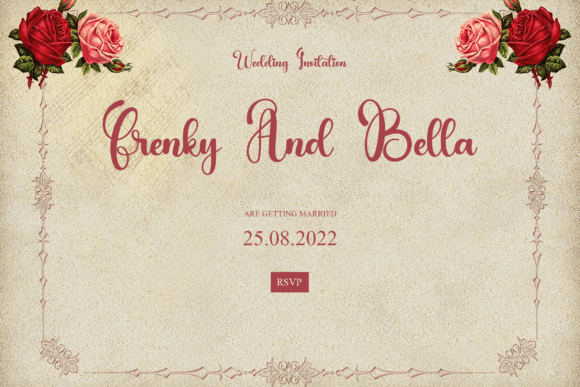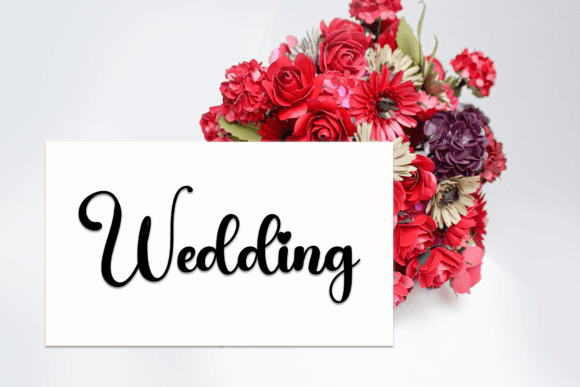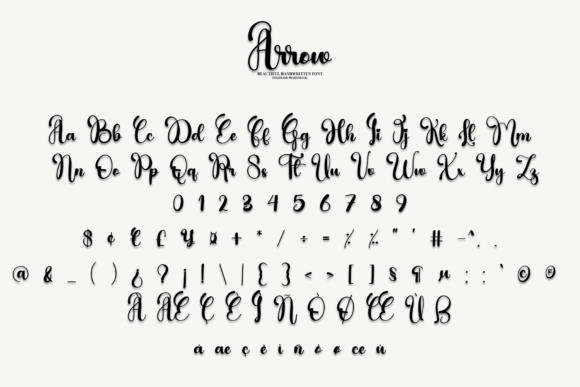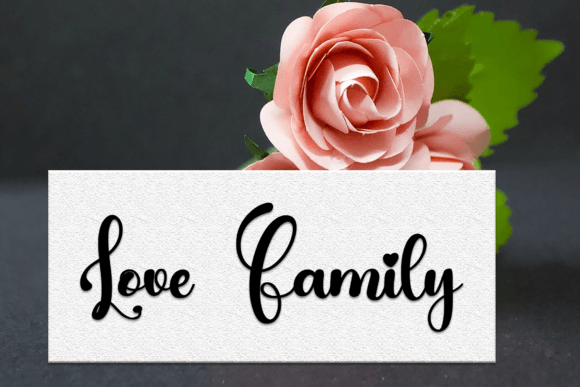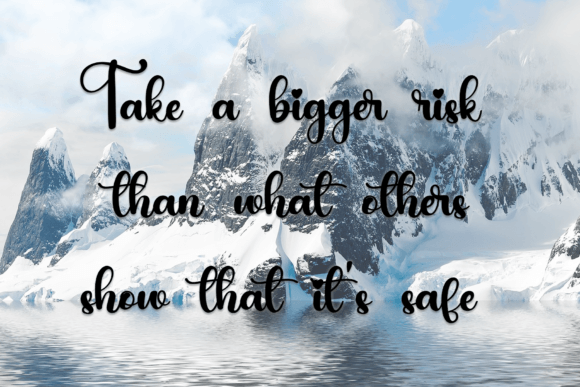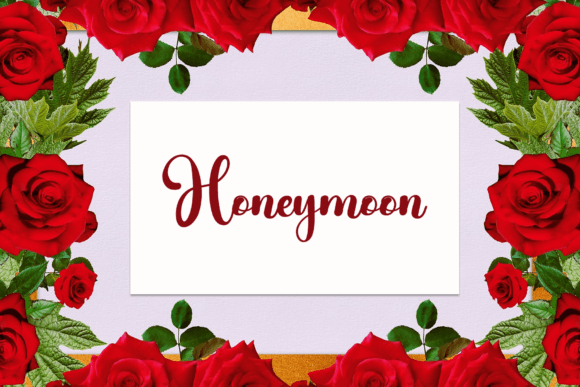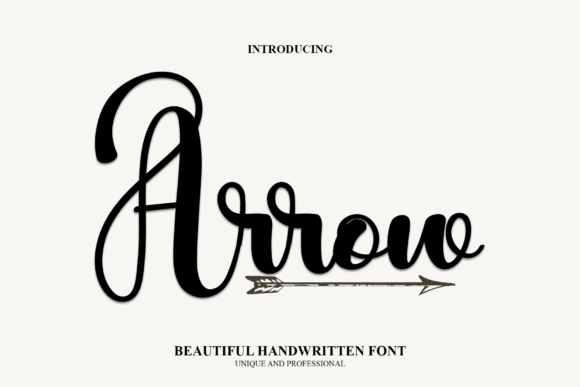
The Elegant Allure of Arrow Font: A Designer’s Delight
I’ll never forget the time I was working on a wedding invitation project, and my client asked for a font that was “elegant, feminine, and playful.” I scoured the internet, tried out countless fonts, but nothing seemed to fit the bill. That was until I stumbled upon Arrow Font. ✨ It was love at first sight! The delicate lines, the whimsical flair, and the versatility of this font made it an instant favorite. In this article, I’ll share my experience with Arrow Font, its features, and how to make the most of it in your designs.
An Honest Review of Arrow Font
• ✨ Elegant and feminine design, perfect for wedding stationery and invitations
• ✅ Highly versatile, suitable for headlines, packaging, and social media posts
• 🔥 Beautifully crafted, with intricate details and a touch of whimsy
While Arrow Font is an excellent choice, it’s not without its quirks. 🤔 Here are a few things to keep in mind:
• ⚠️ May not be suitable for body text, as it’s designed primarily for headlines
• ⚠️ Some characters may not work well in smaller font sizes
The Story Behind Arrow Font
Arrow Font was designed by a talented type designer who wanted to create a font that was both elegant and playful. Inspired by traditional calligraphy and modern digital design, Arrow Font was crafted to be a versatile and beautiful addition to any design project.
Q: Is Arrow Font suitable for body text?
A: While Arrow Font is an excellent choice for headlines, it may not be the best choice for body text. Its elegant design and intricate details are better suited for larger font sizes.